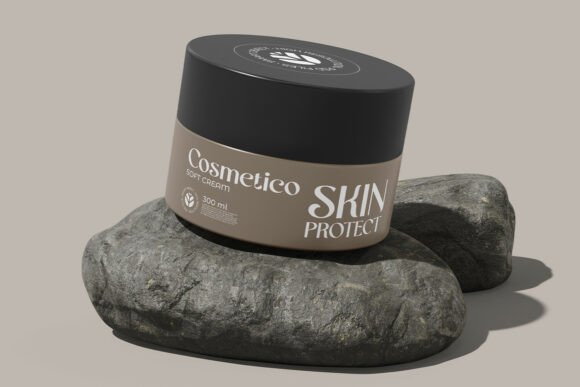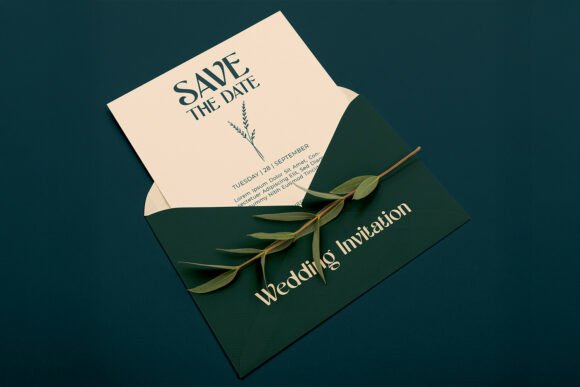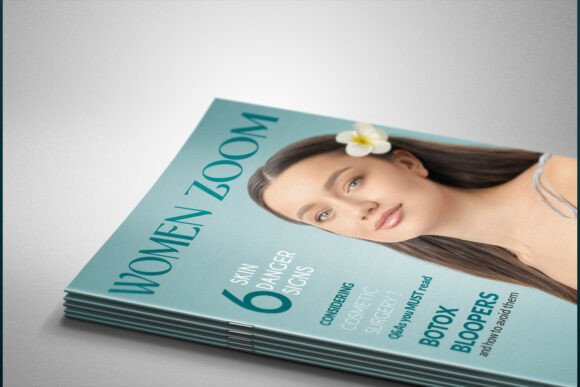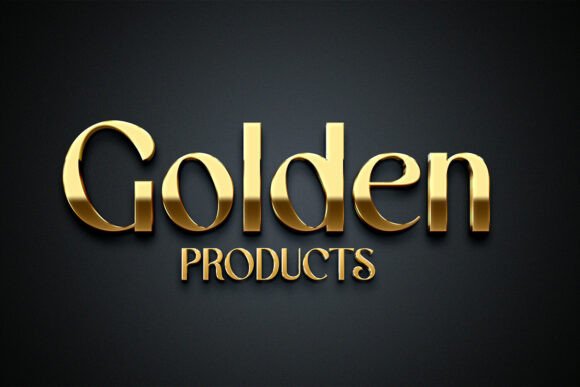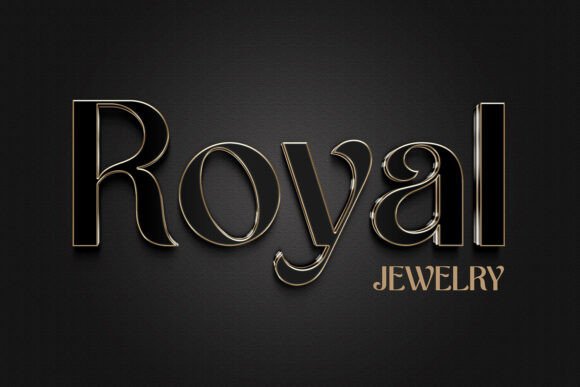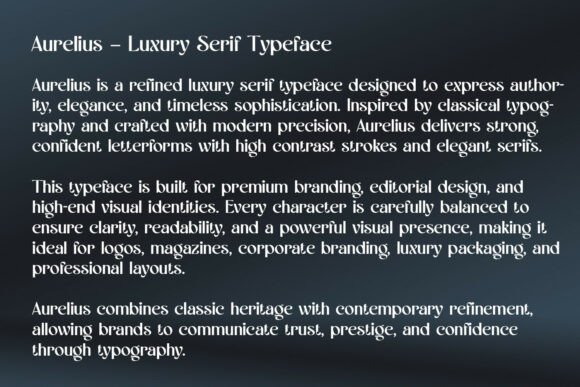
Aurelius Font: Elevate Your Brand with Timeless Luxury
In the world of typography, few typefaces manage to convey the perfect blend of authority, elegance, and sophistication. Aurelius, a refined luxury serif typeface, is one such exceptional design that embodies these qualities. Inspired by classical typography and crafted with modern precision, Aurelius is the ideal choice for brands seeking to communicate prestige and classic luxury.
The Essence of Aurelius
Aurelius is more than just a typeface; it’s a statement of elegance and refinement. Its high contrast strokes and elegant serifs deliver strong, confident letterforms that command respect. This sophisticated display typeface is inspired by high-end editorial aesthetics, striking a perfect balance between sharp, authoritative lines and soft, refined curves. Whether you’re designing a logo, magazine, or luxury packaging, Aurelius ensures that your brand exudes timeless elegance.
Crafted for Premium Branding
Aurelius is built for premium branding, editorial design, and high-end visual identities. Every character is carefully balanced to ensure clarity, readability, and a powerful visual presence. This attention to detail makes Aurelius ideal for a variety of applications, including:
- Logos: Create a lasting impression with a logo that exudes sophistication and elegance.
- Magazines: Elevate your editorial design with a typeface that commands respect and attention.
- Corporate Branding: Establish your brand as a leader in your industry with a typeface that communicates trust and prestige.
- Luxury Packaging: Add a touch of elegance to your packaging and make your product stand out.
- Professional Layouts: Create stunning layouts that showcase your content in a clear and sophisticated manner.
Classic Heritage Meets Contemporary Refinement
Aurelius combines classic heritage with contemporary refinement, allowing brands to communicate trust, prestige, and sophistication. This typeface is perfect for brands that want to convey a sense of tradition and timelessness while still appearing modern and refined. With Aurelius, you can create a visual identity that is both nostalgic and forward-thinking.
Why Choose Aurelius?
There are many typefaces available, but Aurelius stands out for several reasons:
- Unique Blend of Elegance and Authority: Aurelius strikes the perfect balance between sharp, authoritative lines and soft, refined curves.
- High Contrast Strokes: The high contrast strokes in Aurelius create a sense of drama and elegance, making it perfect for luxury brands.
- Elegant Serifs: The elegant serifs in Aurelius add a touch of sophistication and refinement to any design.
- Careful Attention to Detail: Every character in Aurelius is carefully balanced to ensure clarity, readability, and a powerful visual presence.
Aurelius is a refined luxury serif typeface that embodies the perfect blend of authority, elegance, and sophistication. With its high contrast strokes, elegant serifs, and careful attention to detail, Aurelius is the ideal choice for brands seeking to communicate prestige and classic luxury. Whether you’re designing a logo, magazine, or luxury packaging, Aurelius is the perfect typeface to elevate your brand and create a lasting impression.
| Font Name | Aurelius |
| Font Style | Serif |